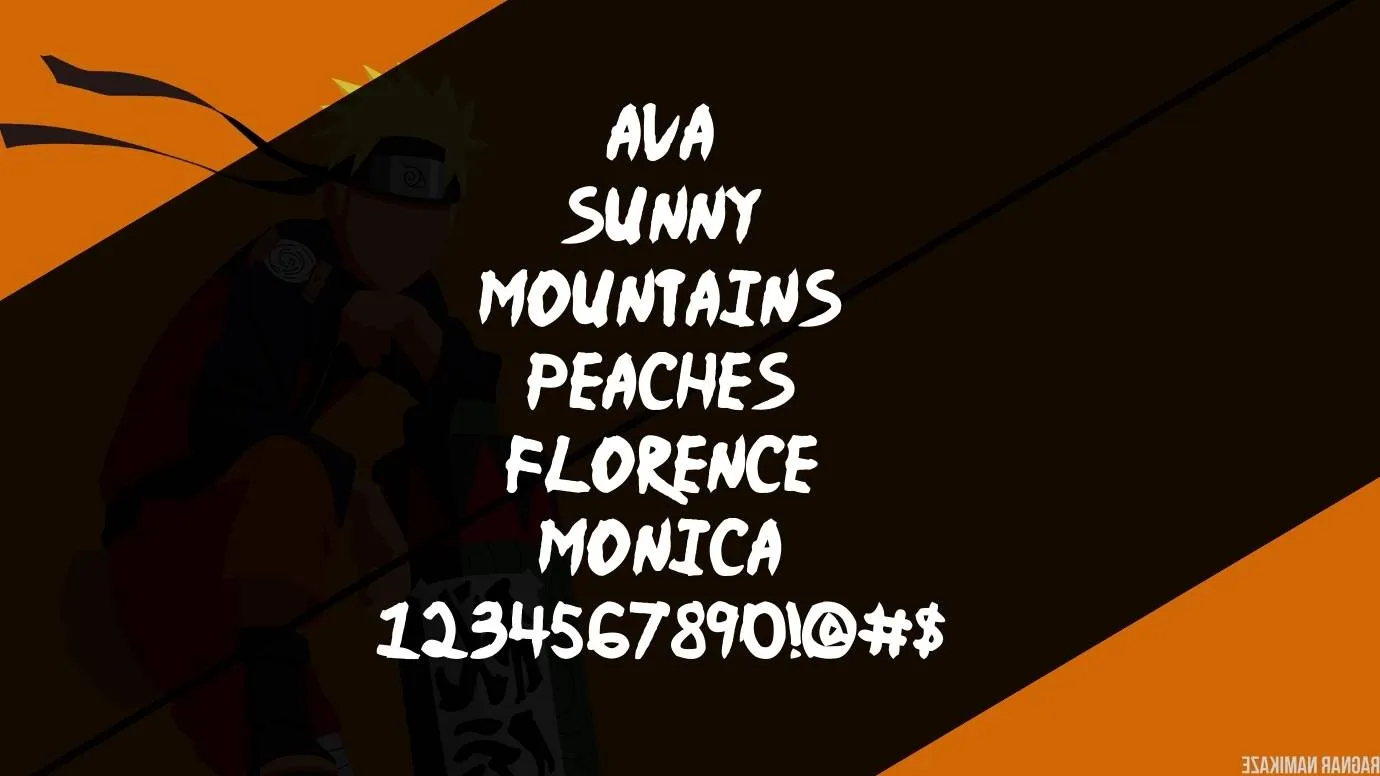
Ninja Naruto Font is a brush-typeface based on the characters of the popular anime and manga series, Naruto. The font was created by a Japanese graphic designer. This typeface is available in both regular and bold weights.
The Ninja Naruto typeface consists of 94 different glyphs, including uppercase and lowercase letters, numbers, punctuation marks, and accented characters. In addition, the font also includes several alternate characters and ligatures.
The Ninja Naruto typeface is a great choice for any project that requires a touch of Japanese culture or a fun and funky brush script. The font would be perfect for headlines, logos, and other short text elements. This typeface looks like a leafy font.
Ninja Naruto typefaces are perfect for any project that requires a touch of Japanese culture or a fun and funky brush script. The font would be perfect for headlines, logos, and other short text elements.
Designer of Ninja Naruto Font
This lovely and attractive typeface is designed by a Japanese typeface designer Masashi Kishimoto for the foundry sk89q in 2004.
This font style is created with an exclusive and regular style. This single attractive style is a combination of different characteristics, including capital alphabets, small alphabets, punctuations, symbols, special characters, glyphs, digits, and several language support.
| Name | Ninja Naruto Font |
| Style | Brush |
| Designer | Masashi Kishimoto |
| Foundry | Sk89q |
Is Ninja Naruto typeface a modern font?
No, the Ninja Naruto typeface is not a modern font. It is based on the characters of the popular anime and manga series, Naruto.
Is Ninja Naruto typeface easy to read?
Yes, the Ninja Naruto typeface is easy to read. The font includes several alternate characters and ligatures.